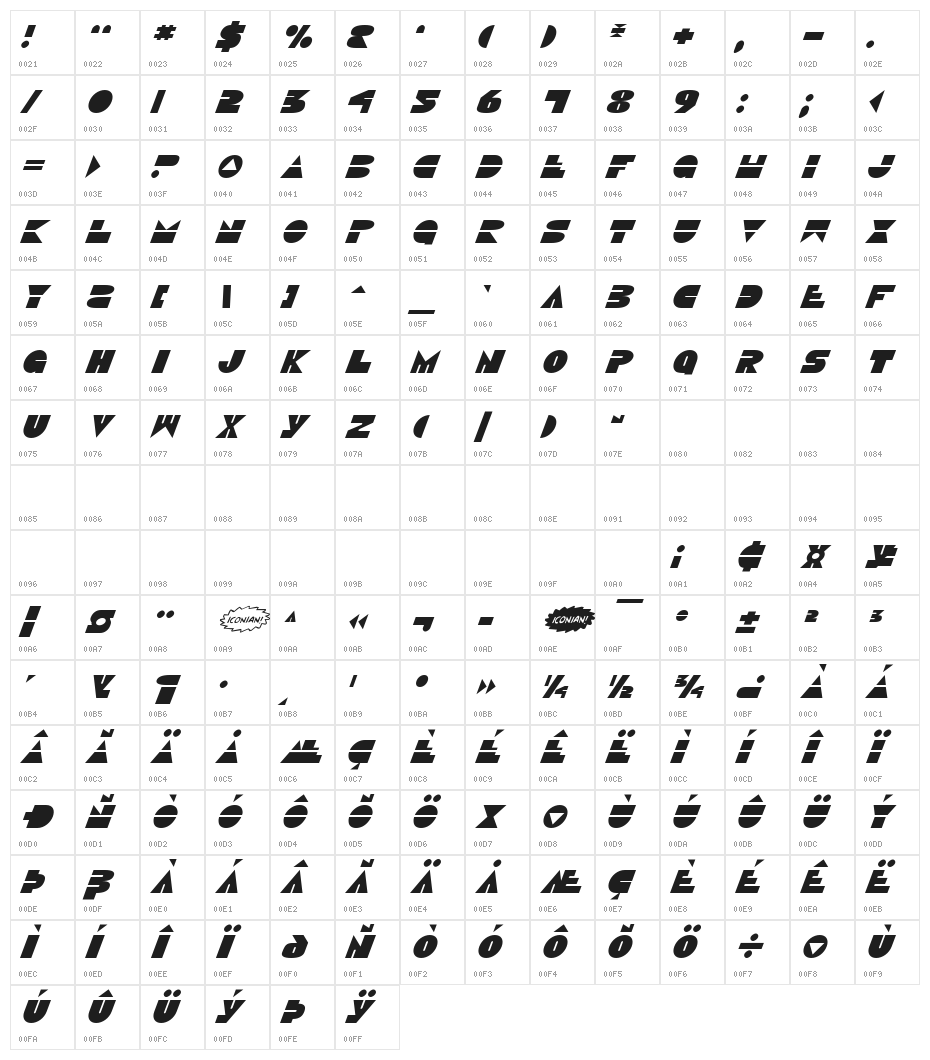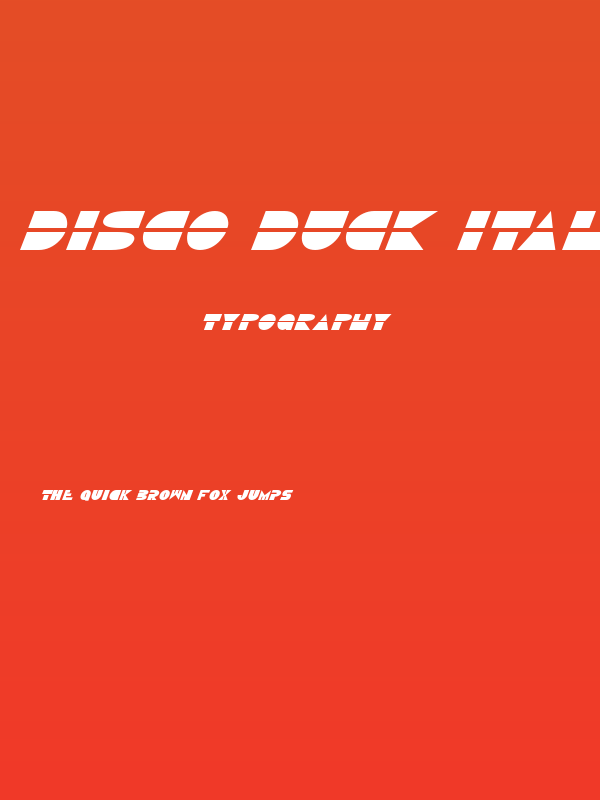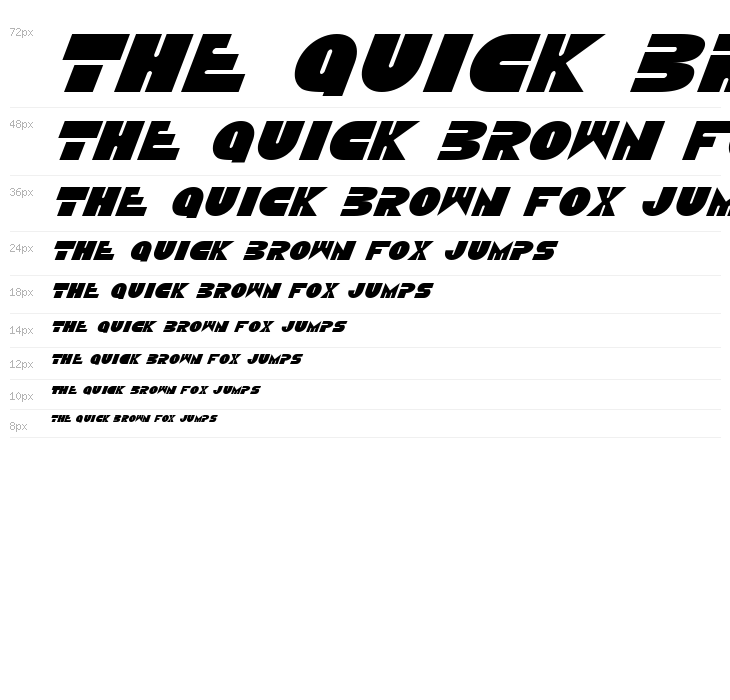
Disco Duck Italic Font
Disco Duck Italic Description
This font features a bold, geometric style with sharp angles and a distinct italic slant, giving it a dynamic and energetic appearance. The characters are constructed with thick strokes and unique cutouts that create a sense of movement and modernity. The uppercase and lowercase letters maintain a consistent style, while the numerals and special characters complement the overall design. This font is ideal for projects that require a bold statement, such as posters, album covers, or branding materials.
| Proposed Projects | Ideal for posters, album covers, branding, and any project needing a bold, modern look. |